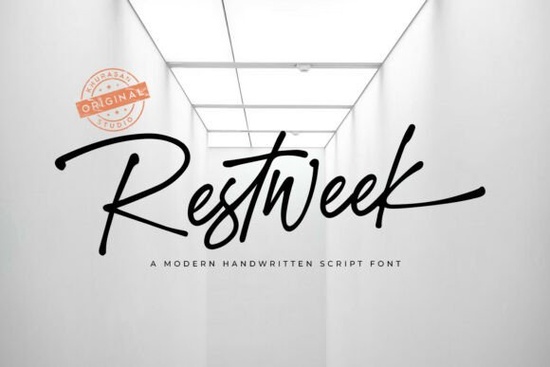
Restweek Font is a versatile script typeface that brings the charm of handwritten text to digital projects. Designed with a natural brush effect, this font captures the essence of real hand-lettering, making it ideal for a wide range of creative applications. Whether you're working on personal branding, greeting cards, or editorial layouts, Restweek adds a warm and authentic touch that stands out.
One of the standout features of Restweek is its elegant connectors and gentle slant, which give it a relaxed and effortless look. This makes it perfect for designs that aim to convey a sense of intimacy and sincerity. The font’s fluid strokes mimic the way someone might write in a personal journal, offering a unique visual appeal that feels genuine and approachable.
If you’re looking for a font that can enhance your digital correspondence or help create minimalist logos for lifestyle influencers, Restweek is an excellent choice. Its soft and inviting style pairs well with pastel color schemes and gentle photography, creating a serene and welcoming aesthetic. This makes it particularly useful for brands that want to communicate warmth and authenticity through their visuals.
What Makes Restweek Stand Out?
Restweek Font is designed with attention to detail, ensuring that every character flows naturally and maintains a cohesive look. The inclusion of PUA encoding means that all special characters and decorative elements are easily accessible without requiring additional software. This feature is especially helpful for users who want to experiment with different styles and variations without technical hurdles.
How to Use Restweek in Your Projects
Restweek is highly adaptable and can be used in various design contexts. For example, it works well for “thank you” cards, where the personal and heartfelt nature of the font complements the message. It also shines in editorial layouts, adding a touch of elegance and sophistication to headlines and subheadings.
Small businesses and print-on-demand sellers can benefit from using Restweek in their branding materials. Its clean yet expressive style helps create a memorable identity that resonates with customers. Additionally, lifestyle influencers may find it useful for creating visually appealing social media posts or website headers.
Best Practices for Working With Script Fonts
When using a script font like Restweek, it's important to consider readability. While these fonts add a stylish element, they should not compromise the clarity of your message. Use them strategically, such as for headings or short phrases, rather than long blocks of text.
Pairing Restweek with complementary fonts can also enhance your design. For instance, combining it with a sans-serif typeface can create a balanced and modern look. Experiment with different combinations to find what works best for your specific project.
Whether you're a designer, crafter, small business owner, or creative hobbyist, Restweek Font offers a powerful tool for adding personality and warmth to your work. Its natural brush effect and elegant design make it a valuable addition to any creative toolkit.
- Try using Restweek for personal notes or thank-you messages
- Pair it with pastel colors for a calming visual effect